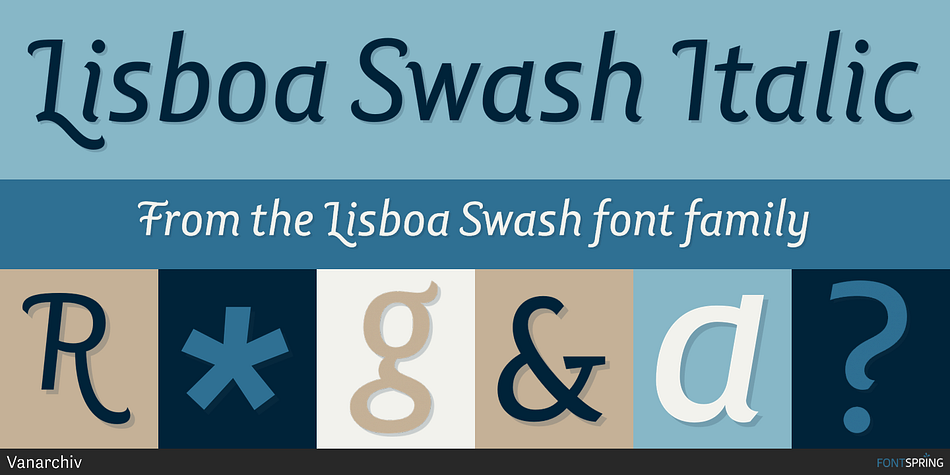
Lisboa Swash Italic
Lisboa Swash is a display sans font family. This typeface has three styles and was published by Vanarchiv.
Lisboa Swash is a display humanist sans-serif typeface.
Lisboa Swash is a display humanist sans-serif typeface. It was designed for big size purposes.
The uppercase letterforms are much more decorative than the lowercase, but both contain hook-head terminals and few contrast. This typeface family contains stylish alternates characters which are more calligraphic than the main version.